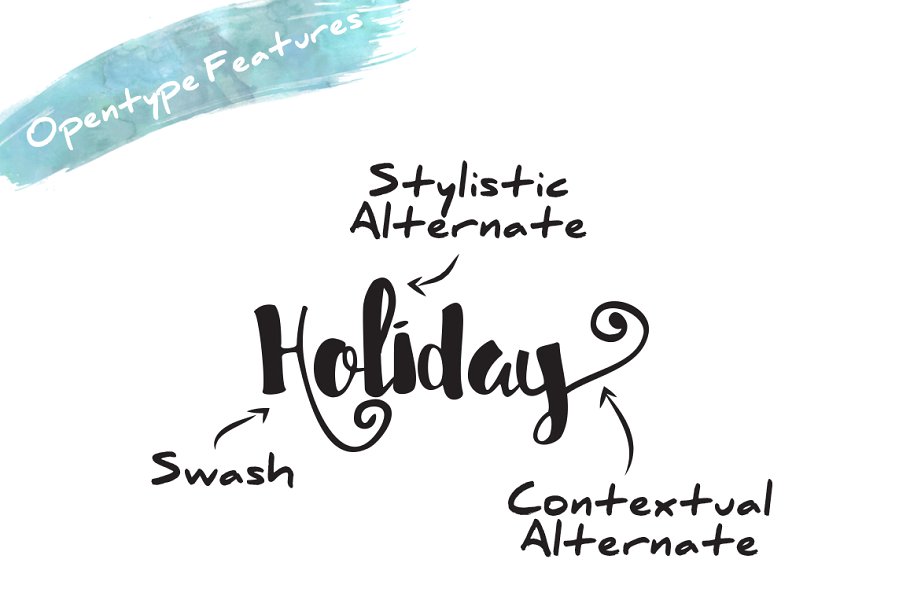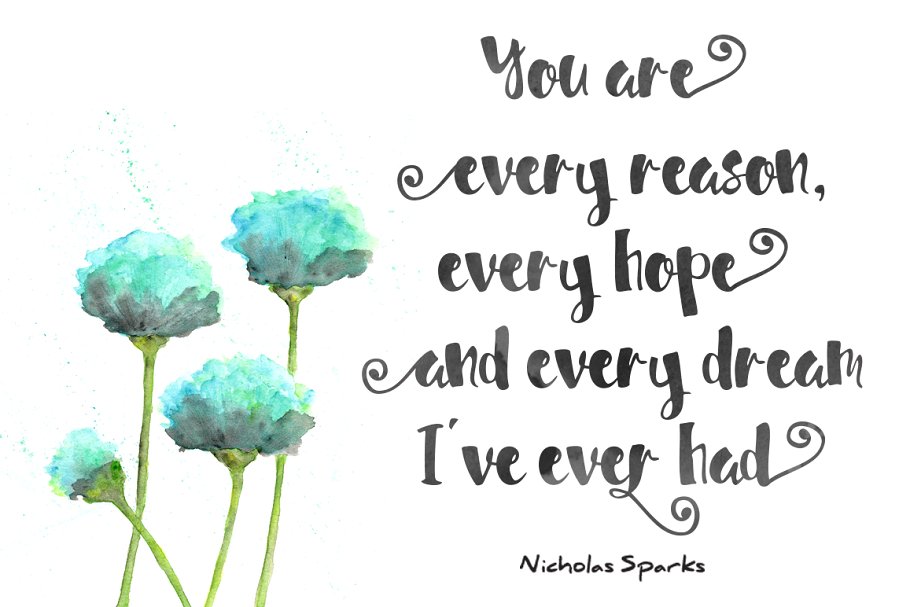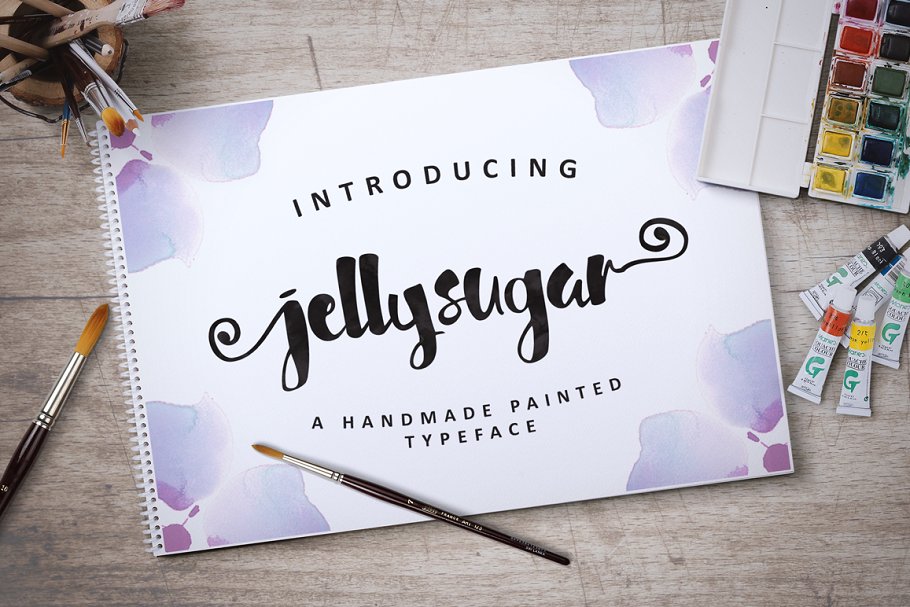
Jellysugar Typeface
Jellysugar is a beautiful handmade brush script give the natural looks. 257 glyphs and alternate character contain with opentype features.
Great for Apparel Brand, any greeting cards, book cover, Painting design style, or any design that needs natural and personal touch. Mix and match the alternate characters to add an attractive message to your design.